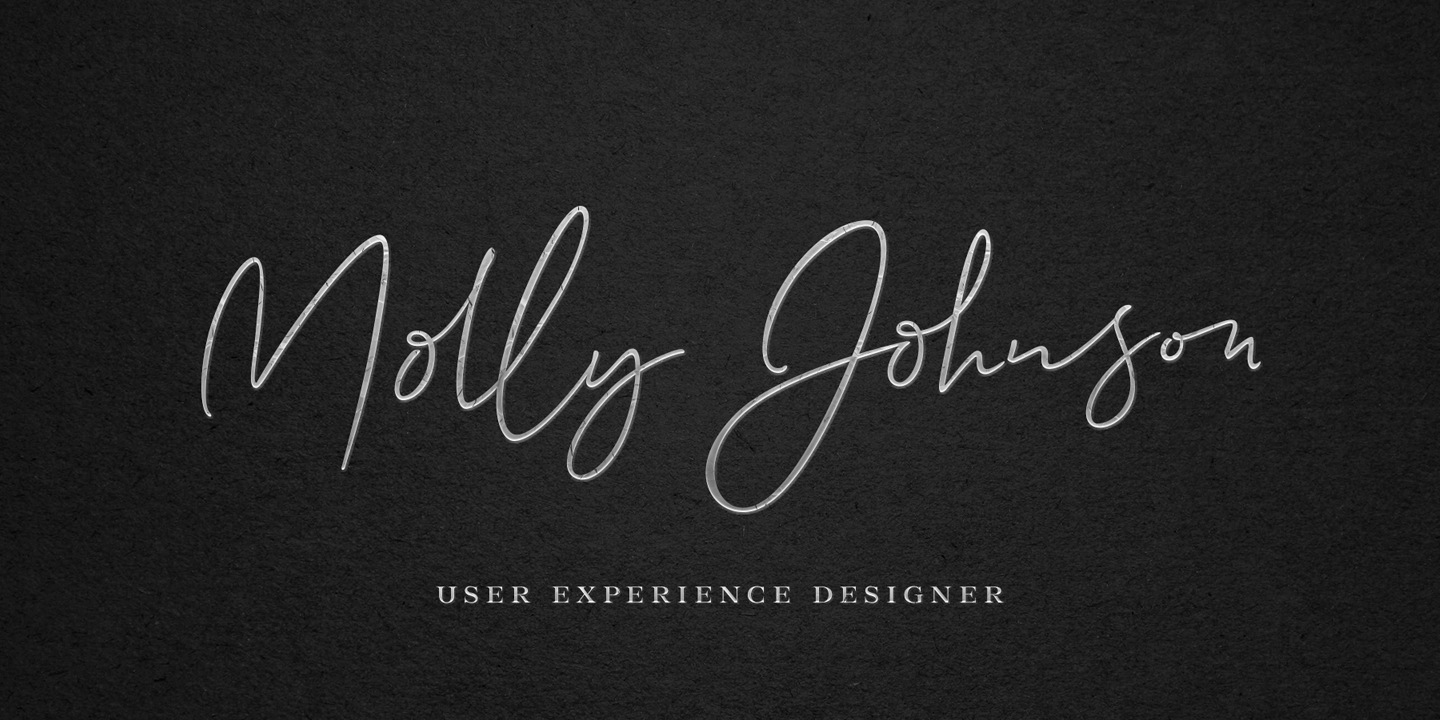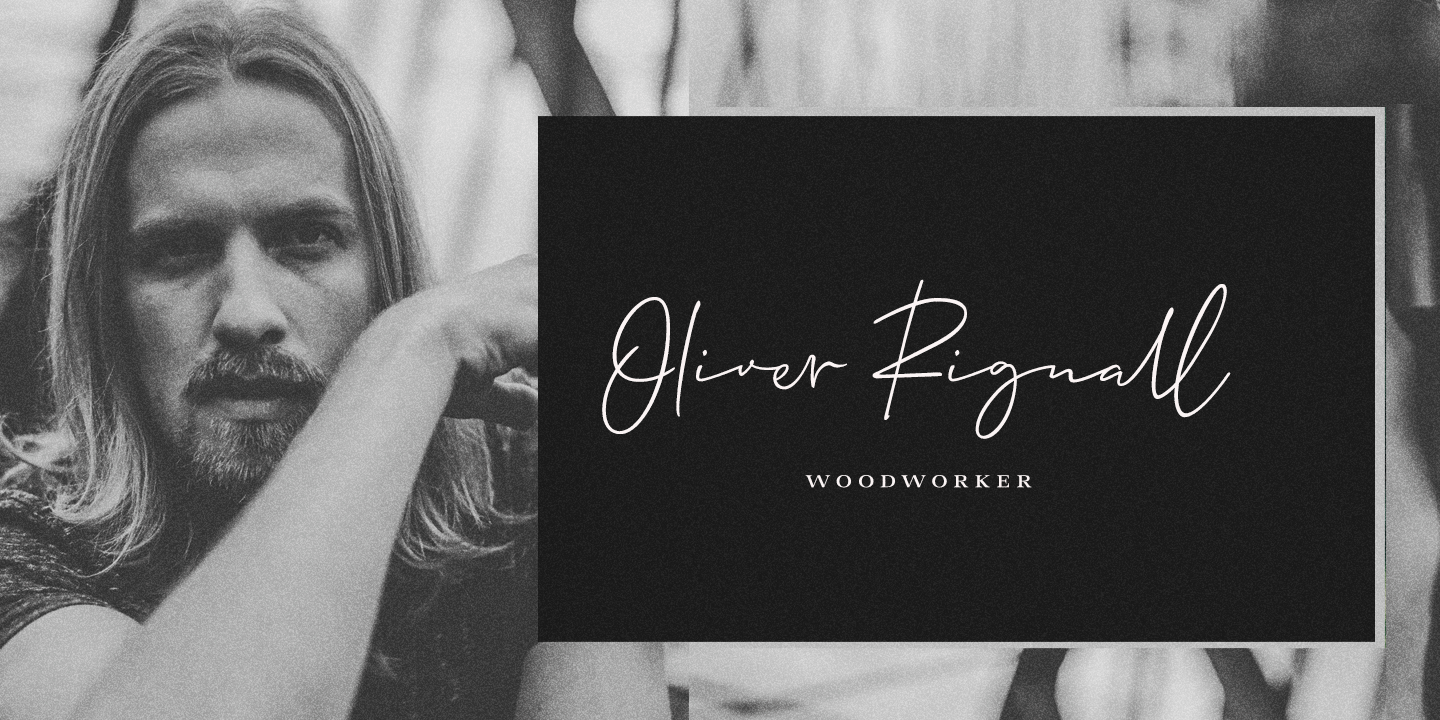
About Allison Script
Allison is a hand drawn signature style Script. Allison is great for branding, headlines, invitation cards or even as a logotype. Allison is equipped with over 100 Contextual Alternates and Standard Ligatures to keep the flow vivid and maintain hand drawn…